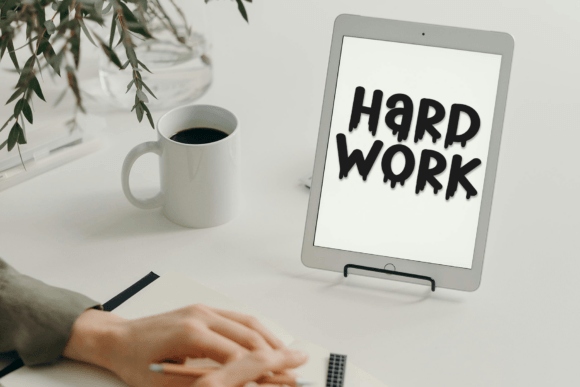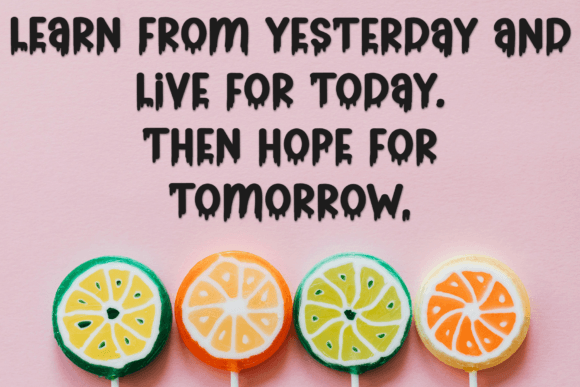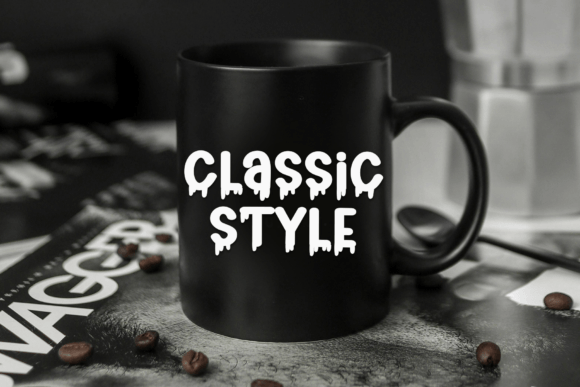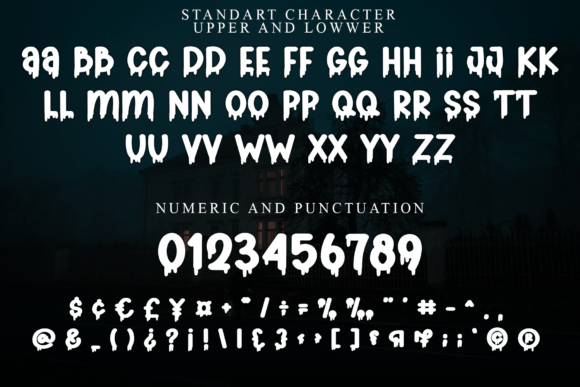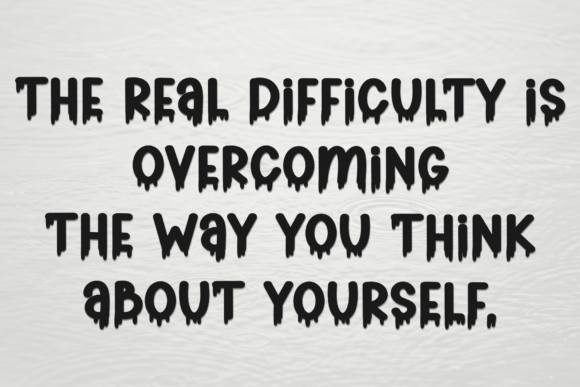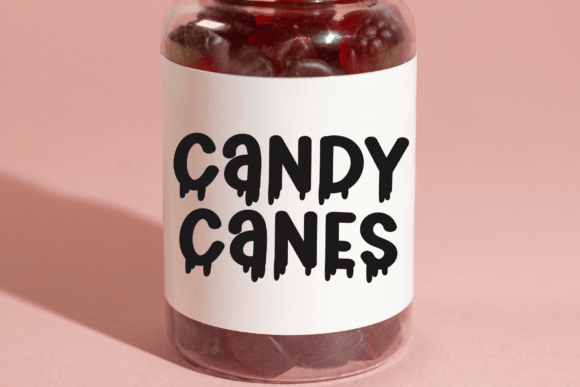
Introduction to Nighty Race Font
Nighty Race is an incredibly cool and unique display font.
It has a modern yet whimsical style and it will undoubtedly immerse your designs into a magical world .
Key Features of Nighty Race Font
Why Choose Nighty Race Font?